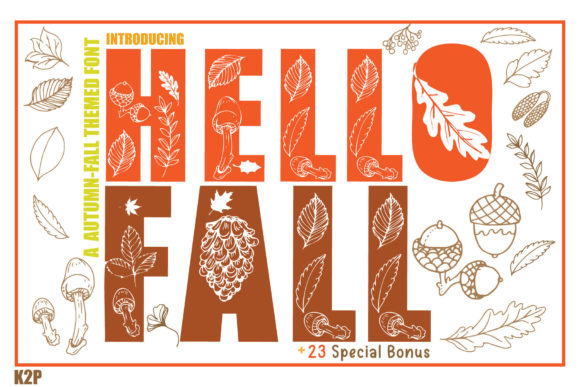
Step into the realm of autumn's splendor with Hello Fall Font, a decorative masterpiece that captures the essence of the season's charm. Its thick, uniquely lettered design dances across your designs like falling leaves, adding a touch of warmth and elegance to every project.
Embrace the spirit of Thanksgiving with Hello Fall Font, a font family that embodies the essence of the harvest season. Its carefully crafted glyphs and swashes, effortlessly accessible with PUA encoding, invite you to create designs that radiate gratitude and joy.
With Hello Fall Font, create invitations that capture the magic of autumn gatherings, menus that tantalize taste buds with seasonal flavors, and social media posts that paint a picture of nature's canvas. Let the font's intricate details elevate your designs, captivating your audience with its timeless appeal.
Unleash your creativity with Hello Fall Font, a versatile companion for a myriad of design projects. Its adaptability shines in logos that exude warmth and charm, branding that reflects the changing seasons, and packaging that embodies the essence of autumn's bounty.
Hello Fall Font is not just a font; it's an experience that transports you to the heart of the season. Its enchanting aura weaves a spell of creativity, inspiring you to craft designs that resonate with the beauty of nature's transformation.
Immerse yourself in the splendor of Hello Fall Font, and let your designs flourish with the colors of the season. Its every curve and stroke is a testament to the artistry of the Fall season, inviting you to create designs that leave a lasting impression.